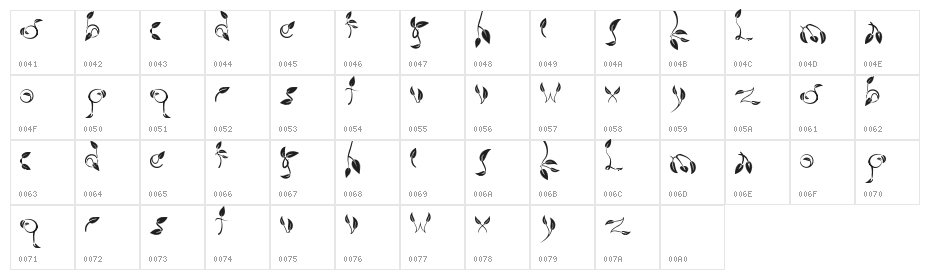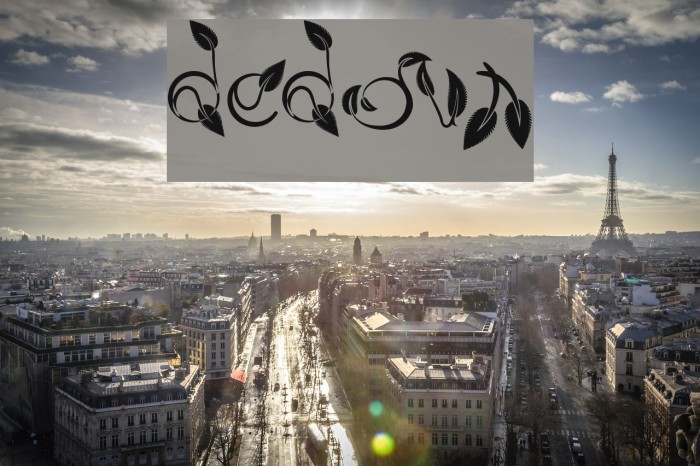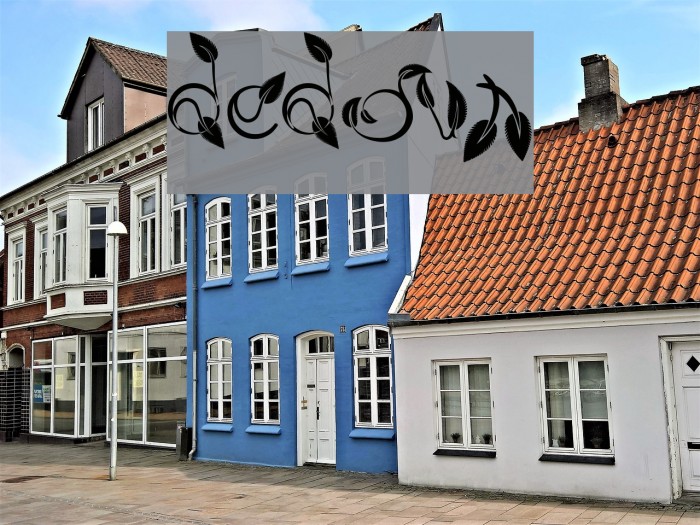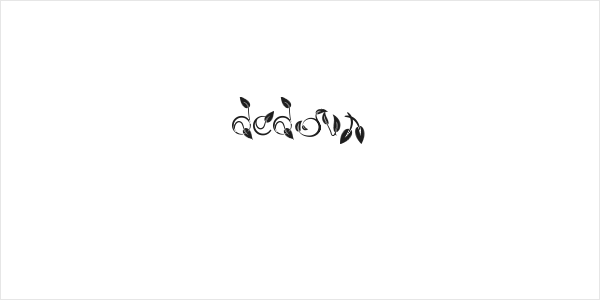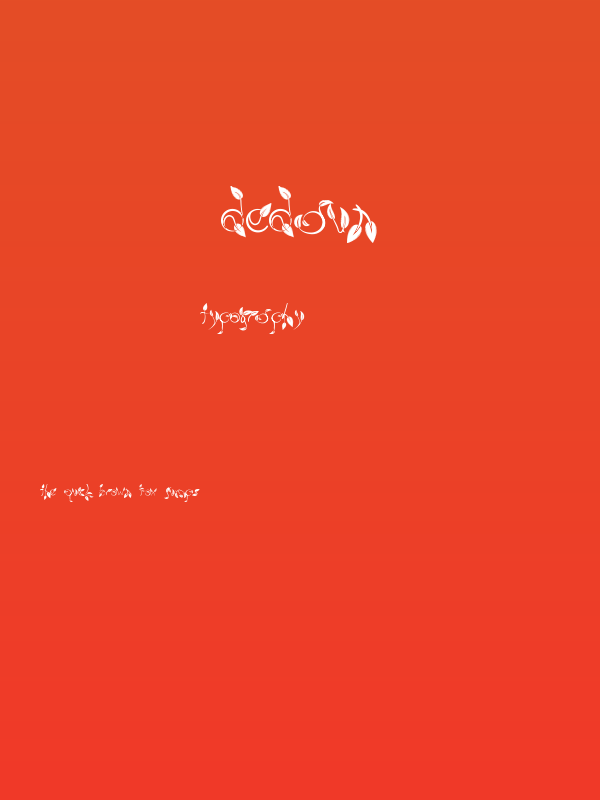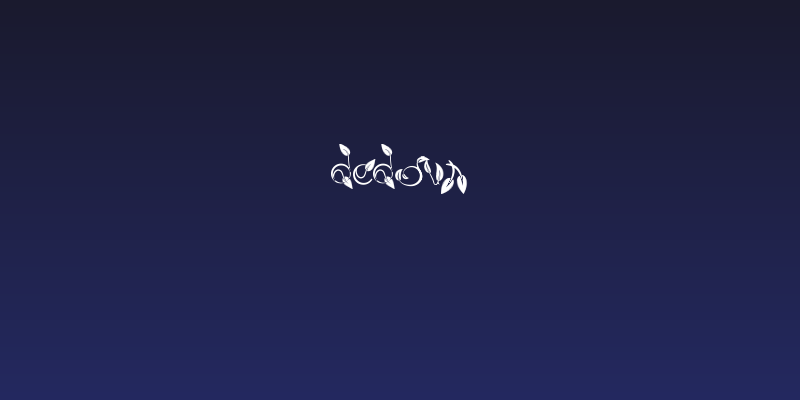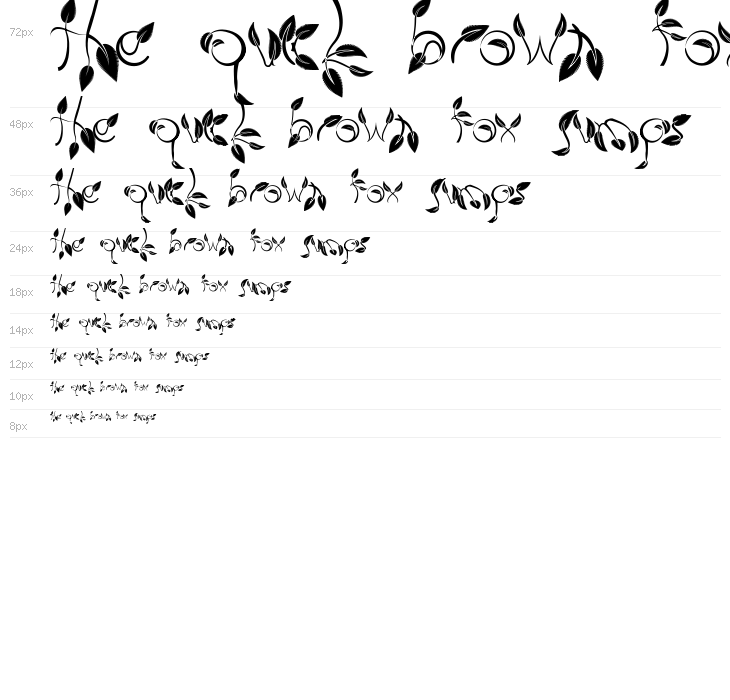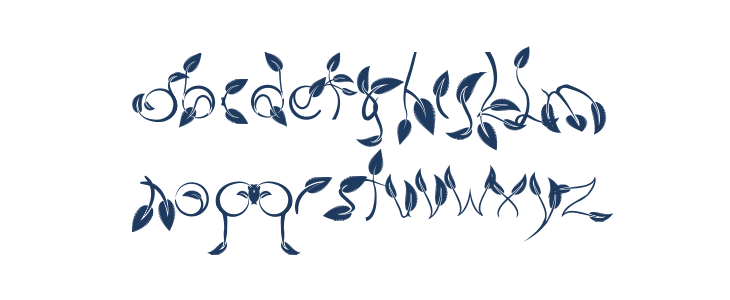
dedaun Font
| Progetti proposti | Ideal for eco-friendly branding, nature-themed event invitations, garden product packaging, and environmental awareness campaigns. |